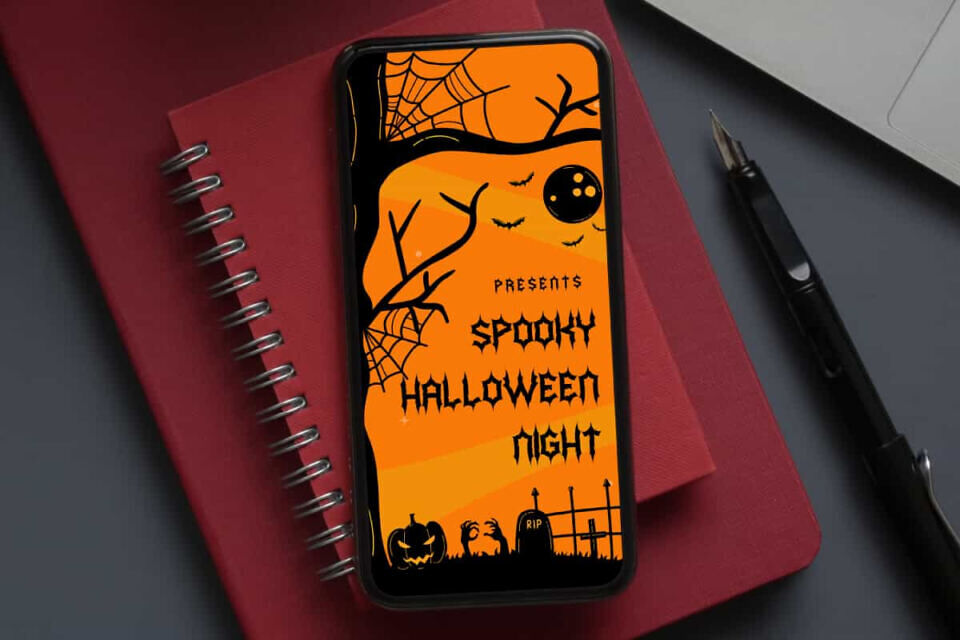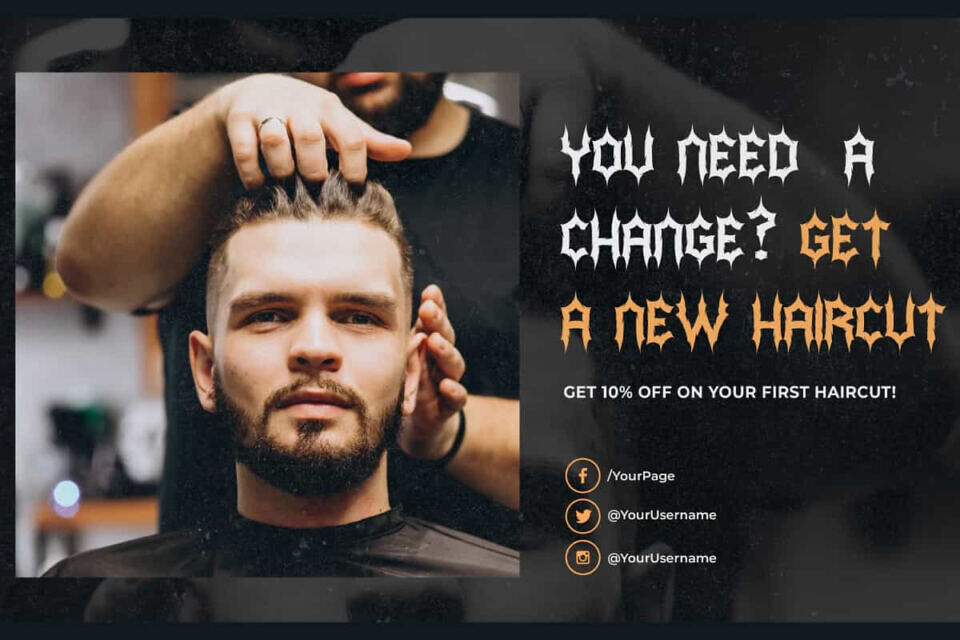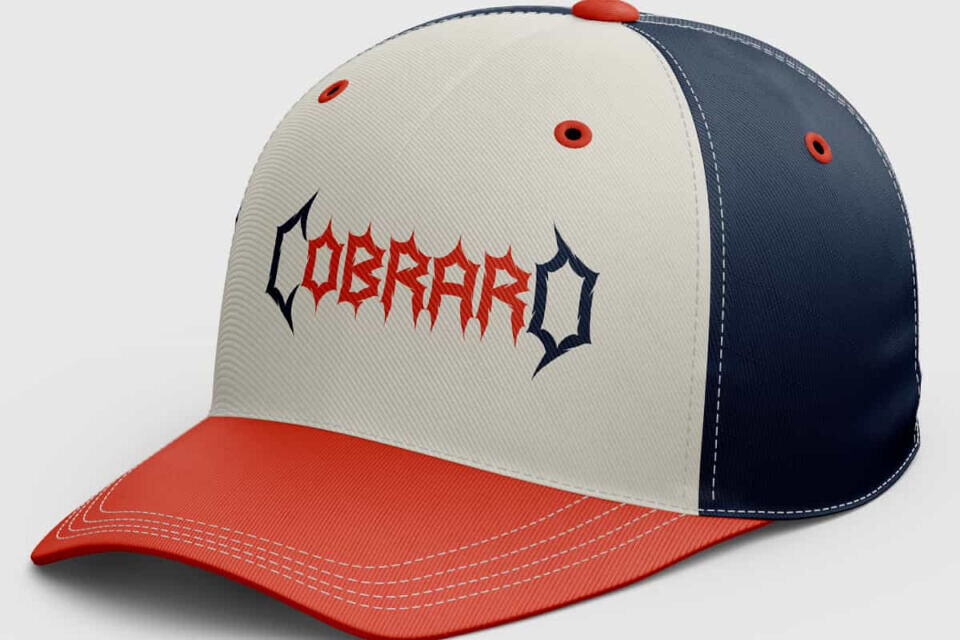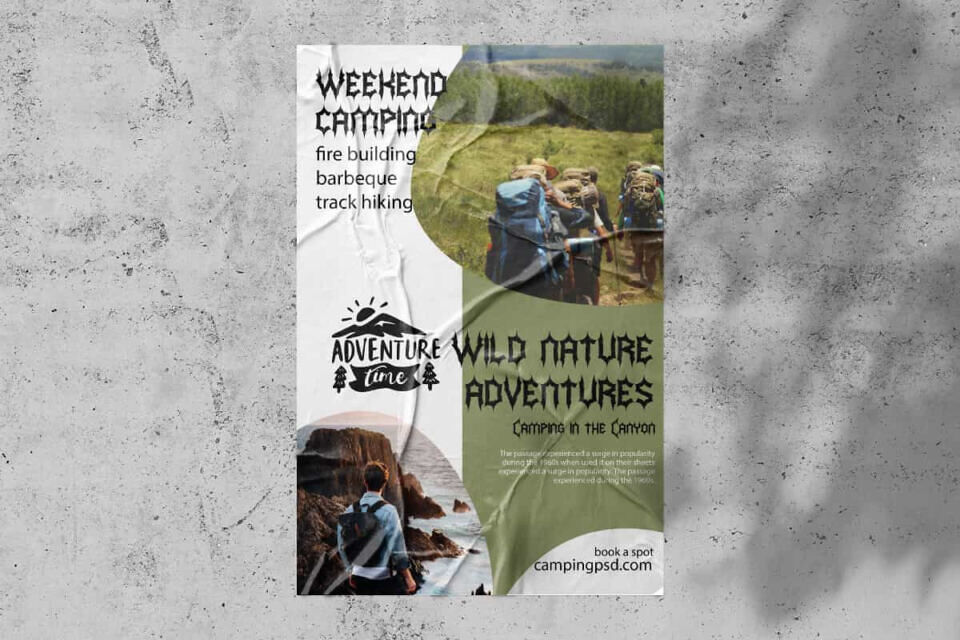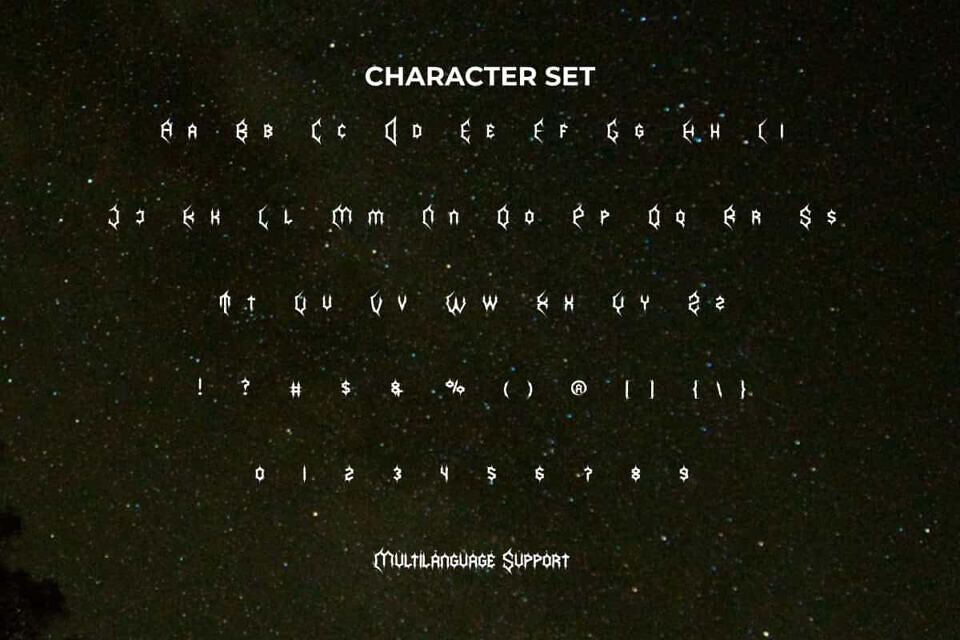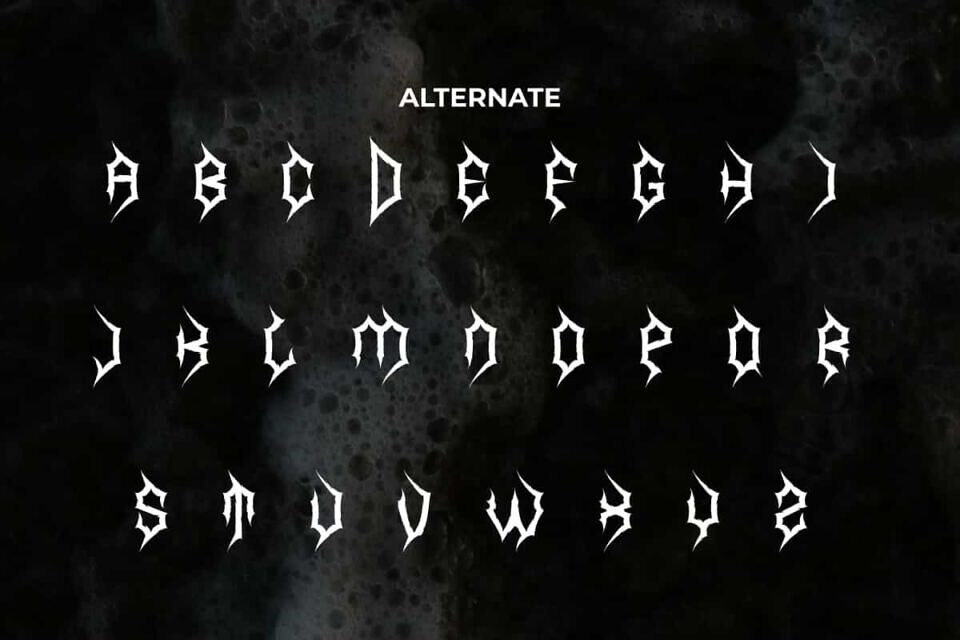
Cobraro Font
Cobraro Font is a horror decorative font with Black Metal concept, created by NoahType. The characters in this font are made in detail to provide a dominant spooky look in every design. It will be perfect for any designs, such as custom design, invitation, signage, label, brand image, cover, marketing material, menu, poster, printing, product packaging, quotes, website, and many more!
Cobraro Font includes full set of ALL CAPS for Uppercase and Lowercase Basic Characters, Numerals, Punctuation, Symbol, and Alternate character. This font will make your design amazing and also a perfect choice for many industries, such as game, movie, music, accessories, advertising, art, café, event or festival, fashion, printing, publishing, etc.